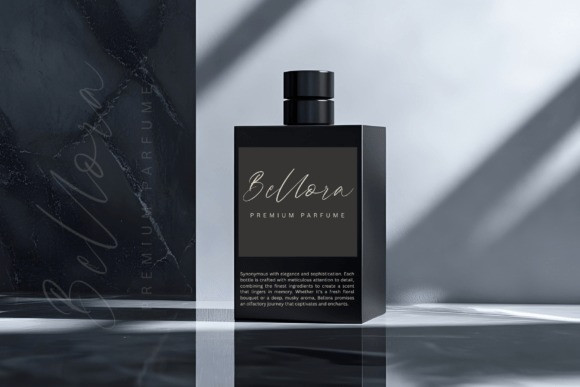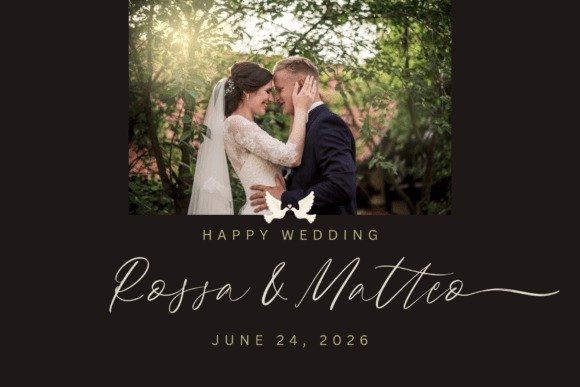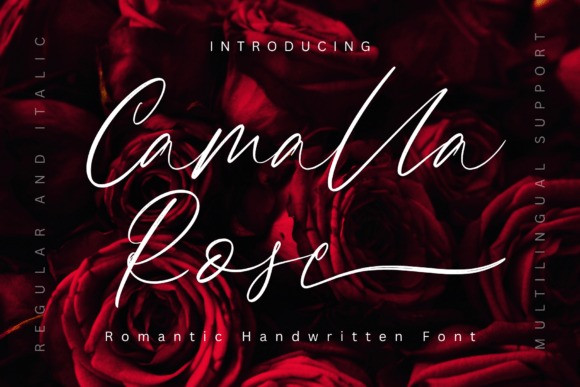
Camalla Rose Script Font
Camalla Rose Script Font is a romantic handwritten script font with a soft, elegant, and natural flow. Designed to feel warm and expressive, this font brings a graceful touch to every project.
Perfect for wedding invitations, branding, logos, beauty products, quotes, and social media, Camalla Rose creates a timeless and feminine look that stands out beautifully.